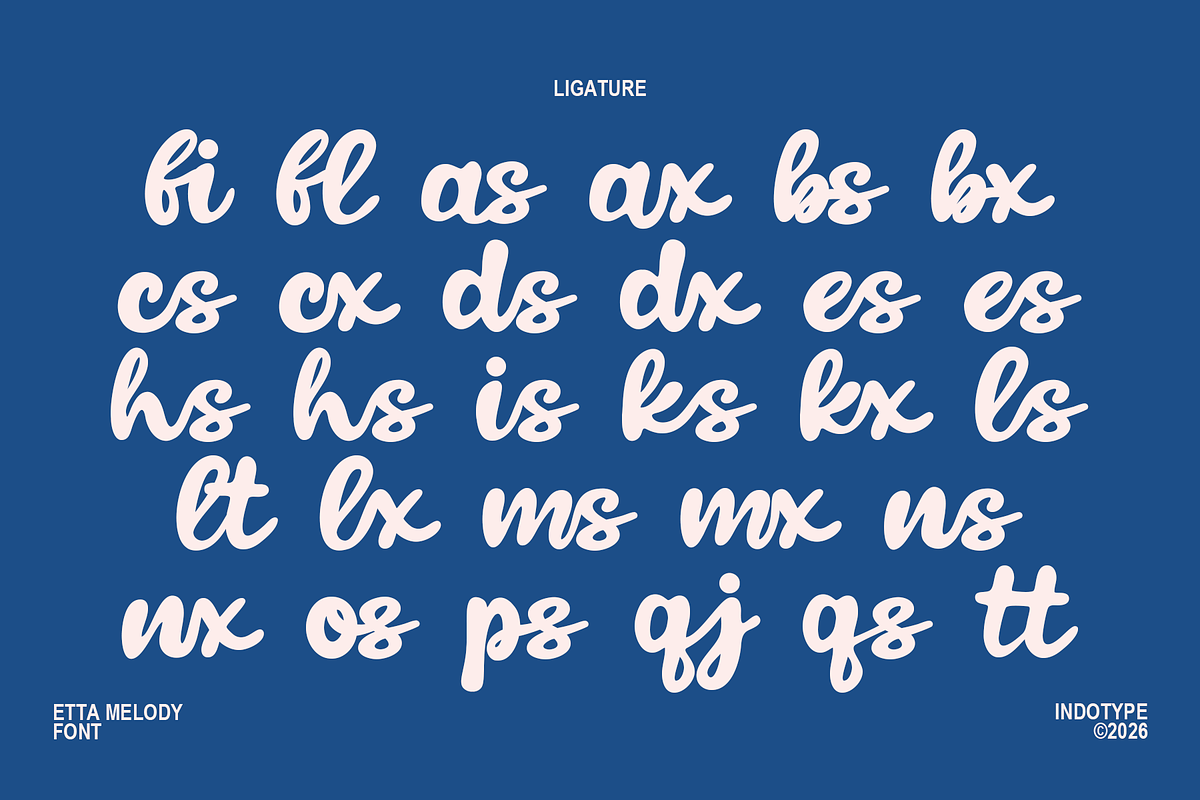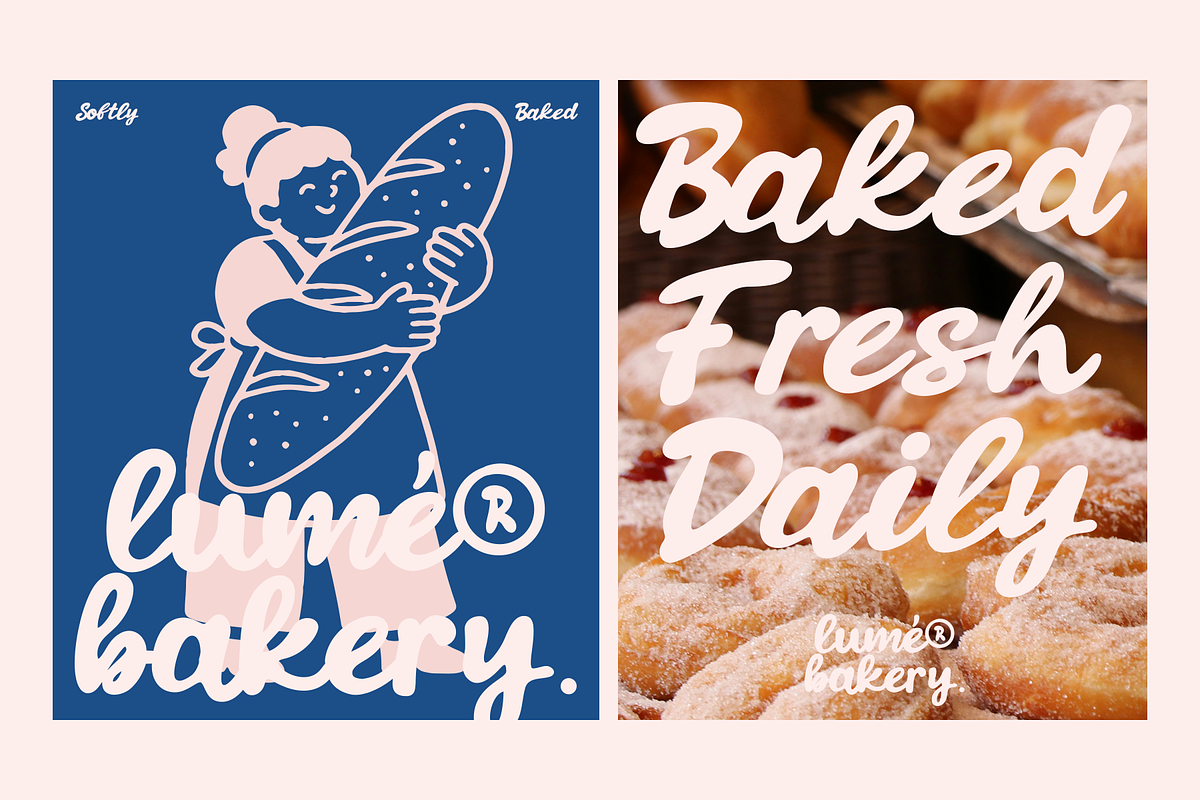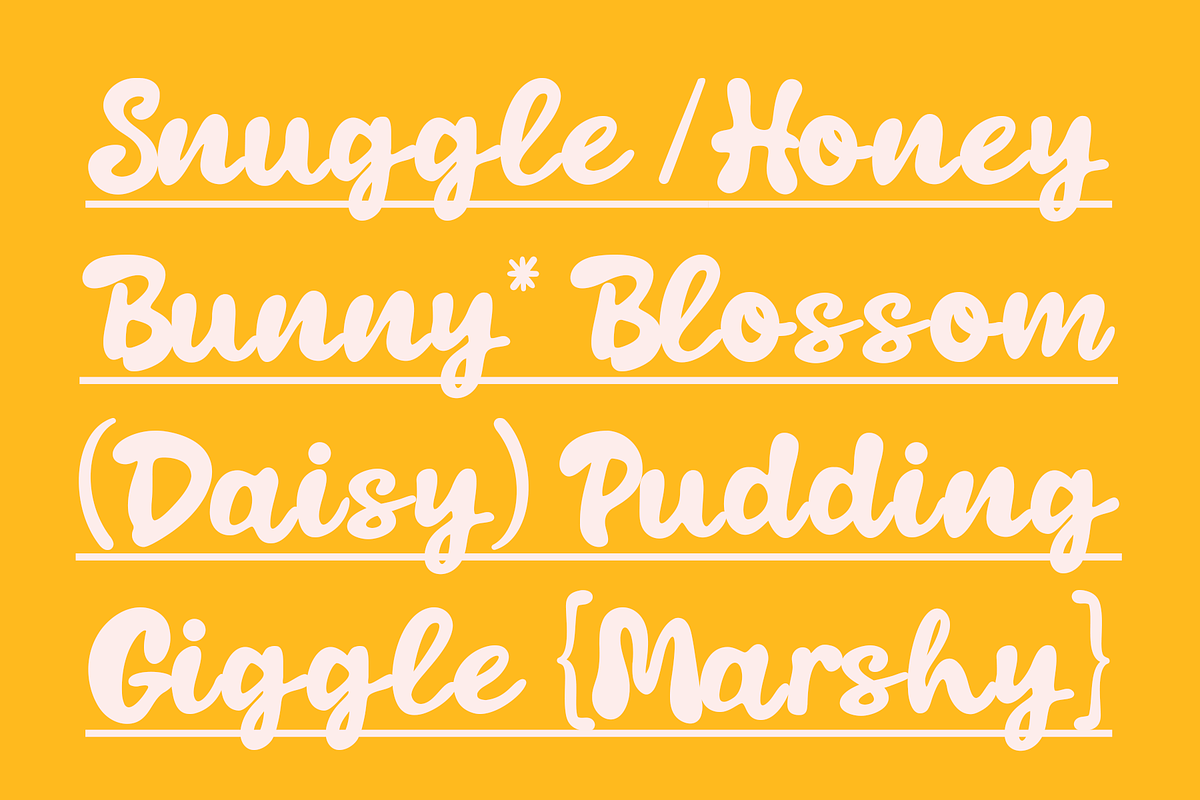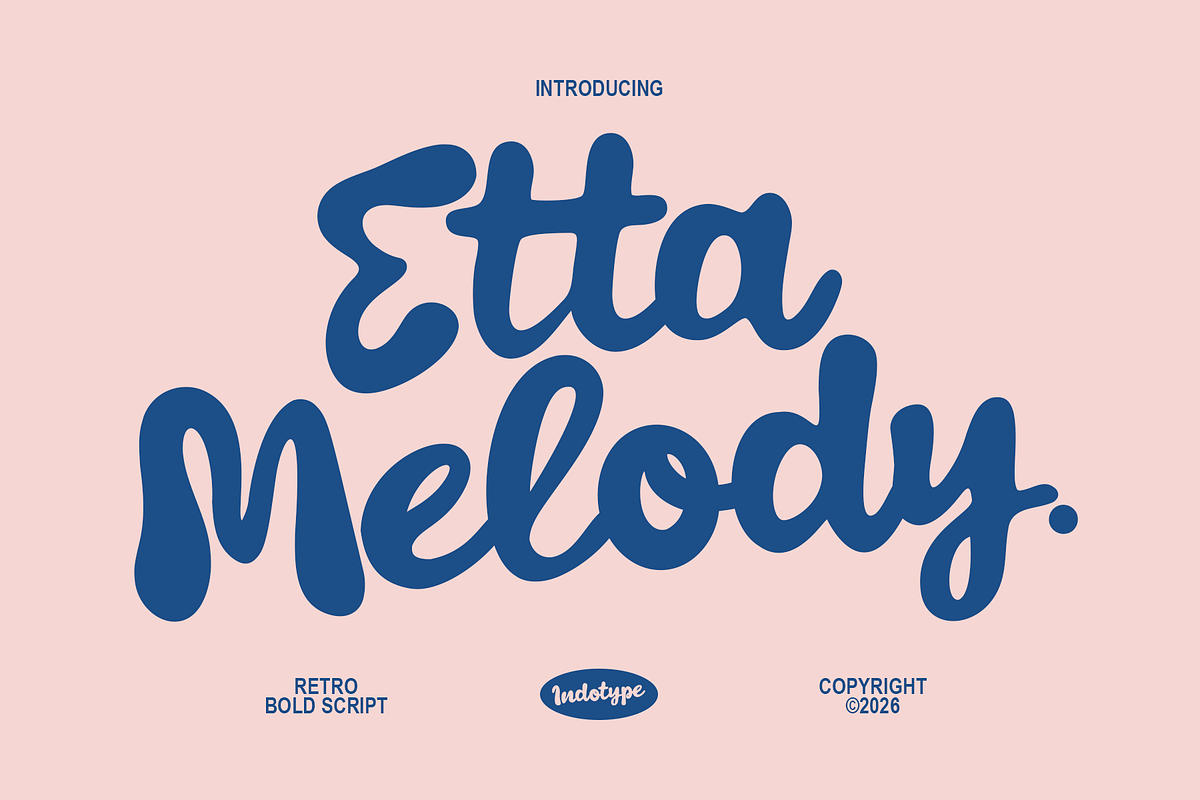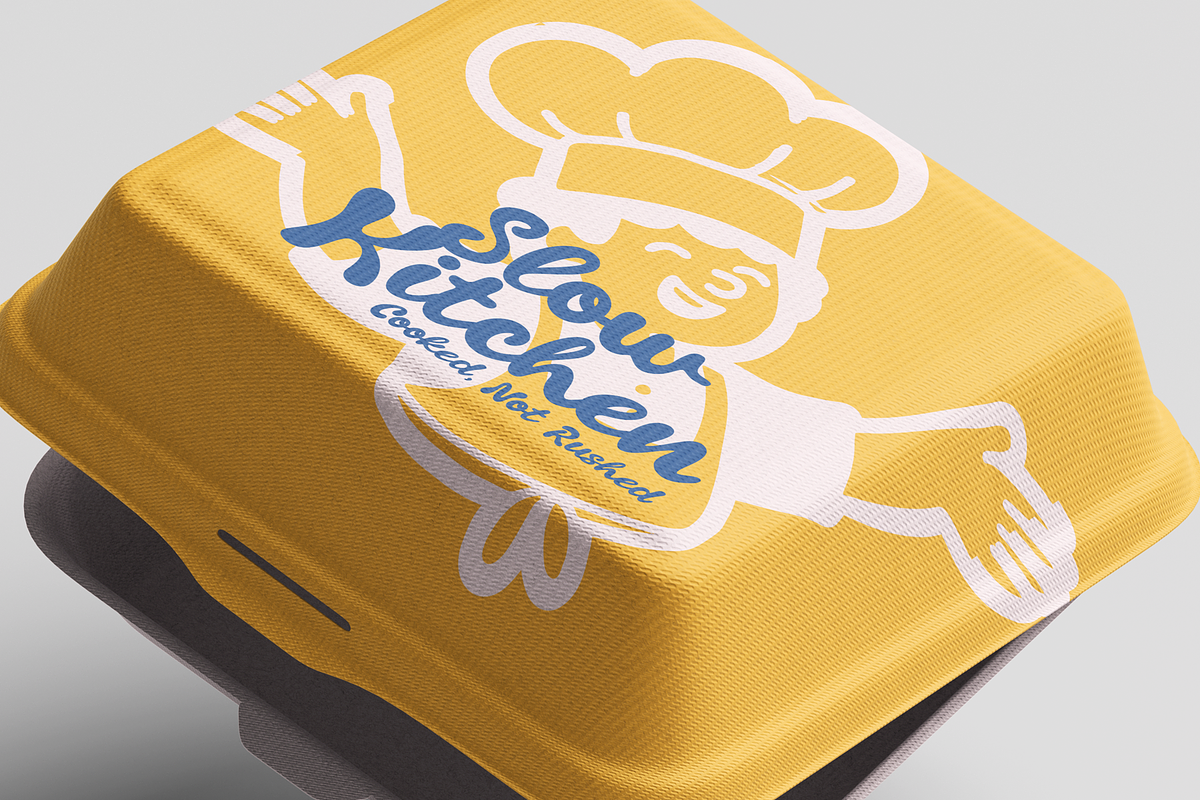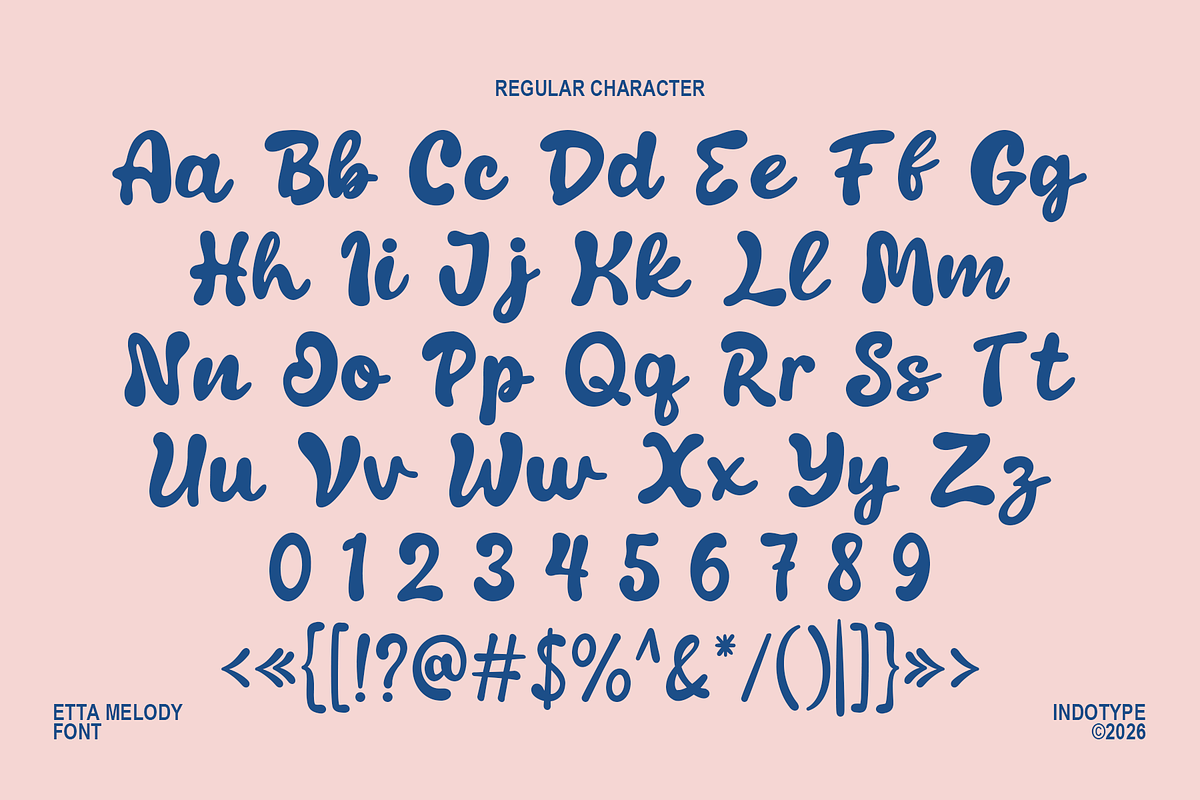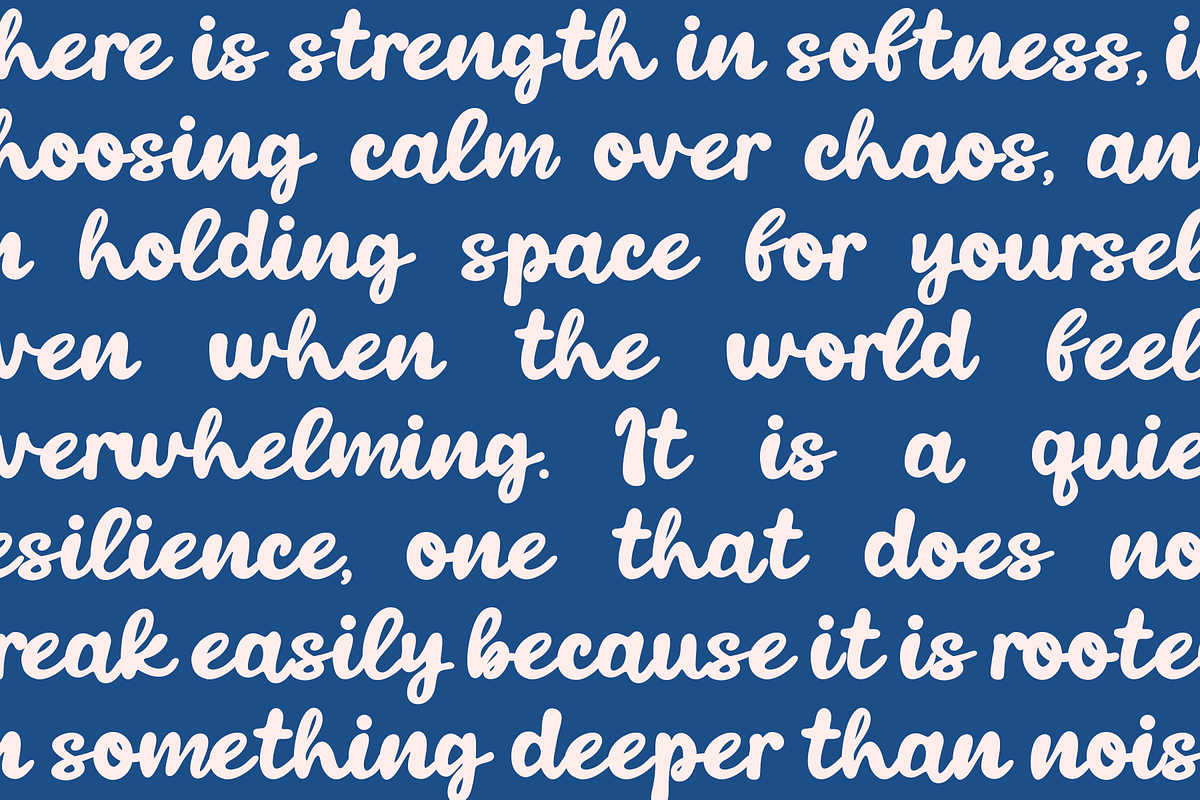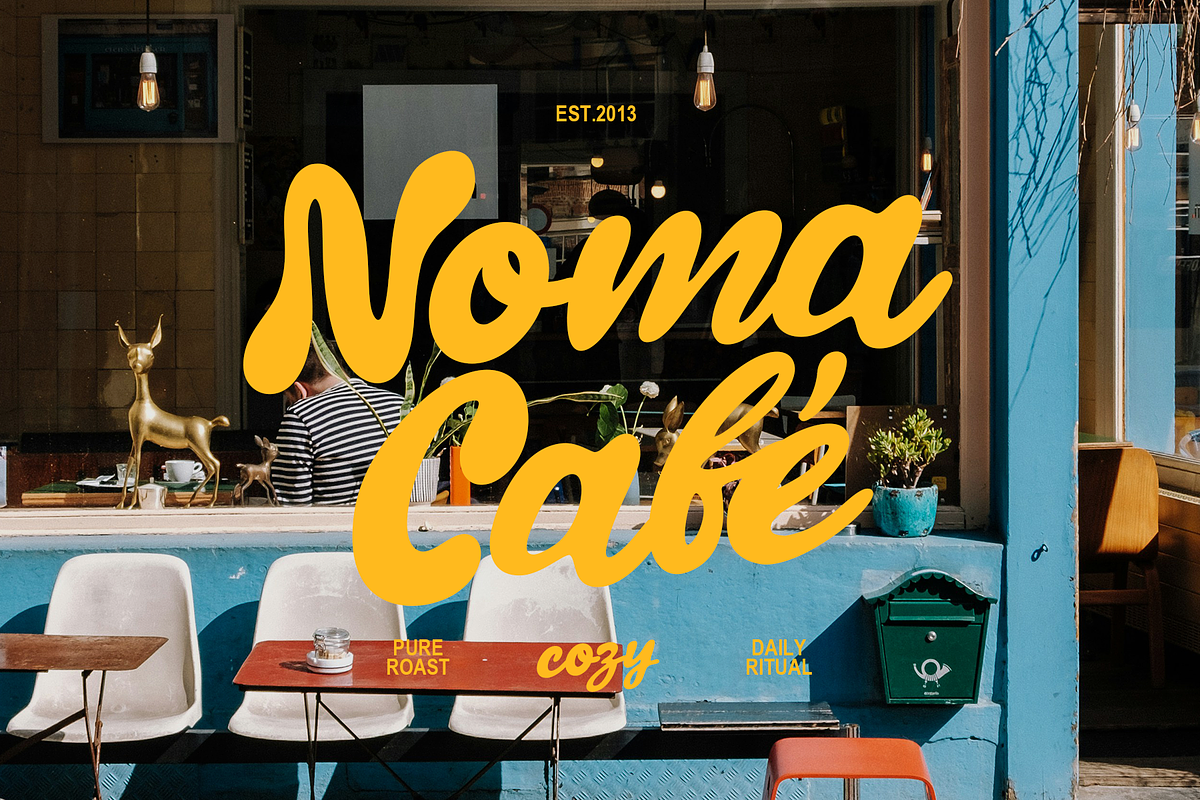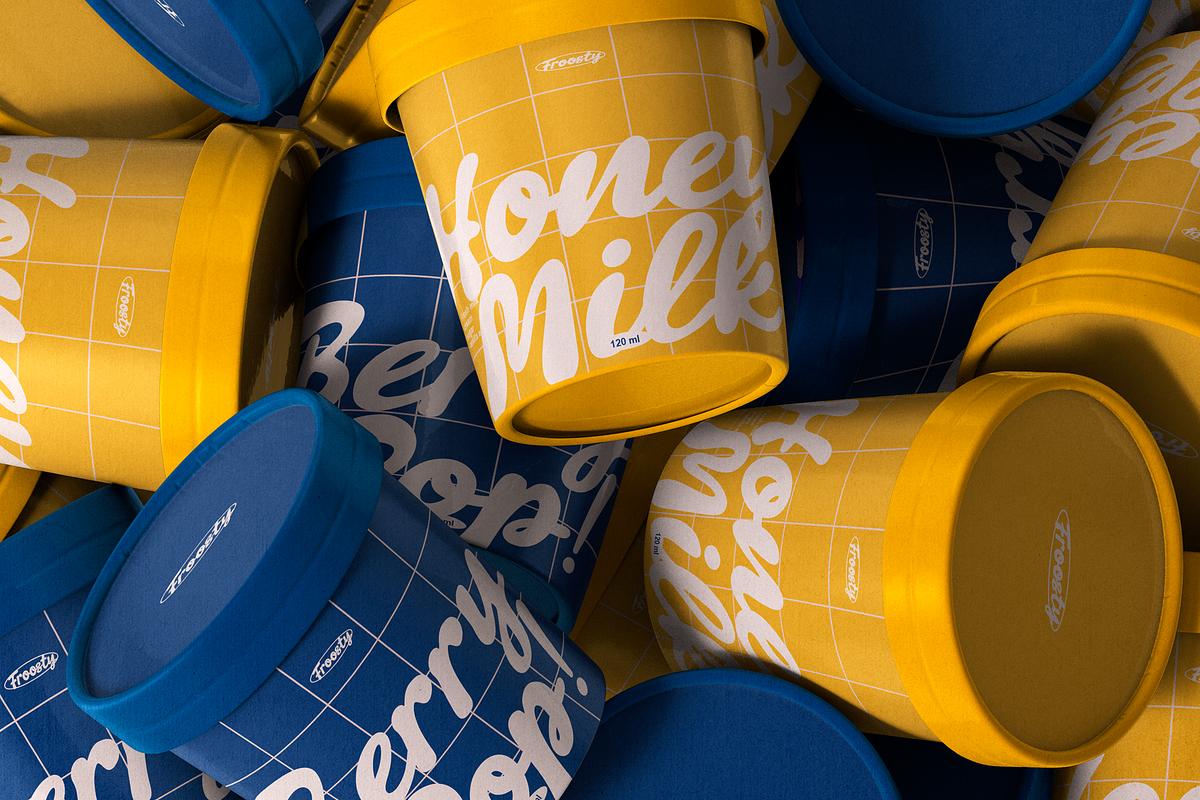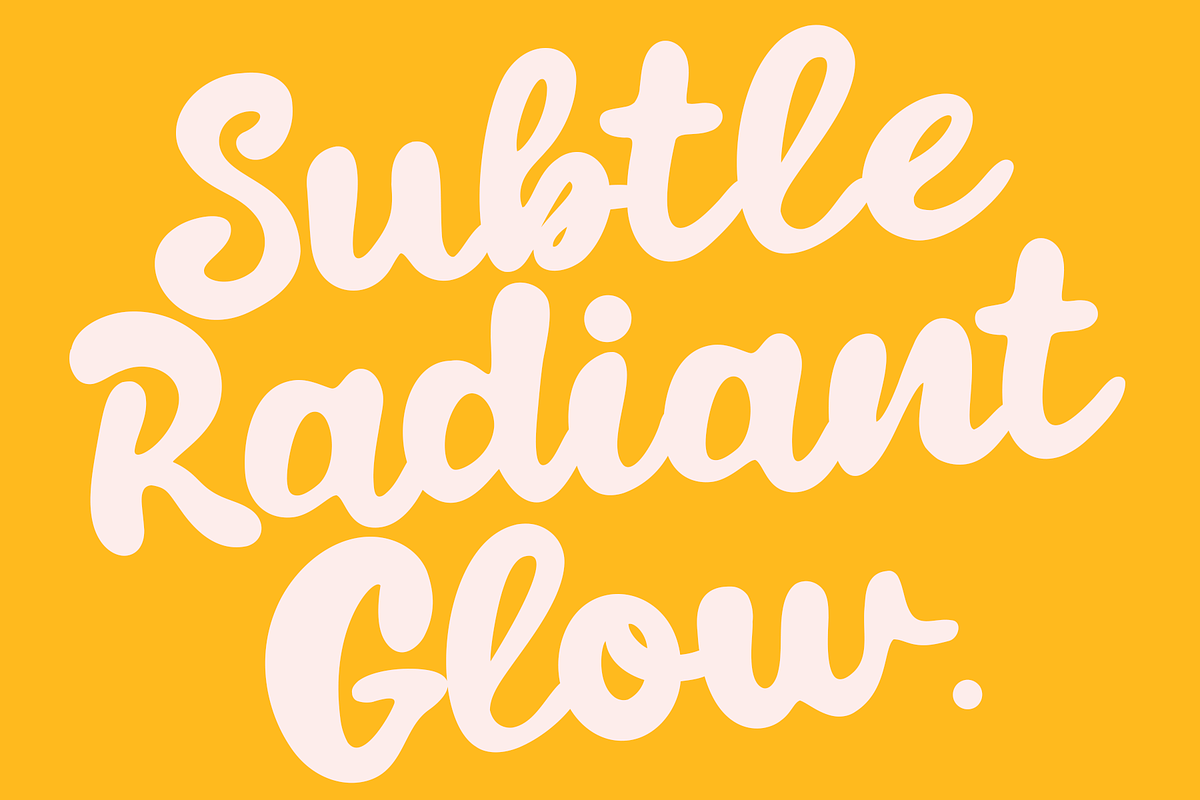
Etta Melody - Retro Bold Script
Etta Melody is a retro bold script typeface that radiates warmth, charm, and irresistible personality. Designed by Indotype, Etta Melody channels the golden era of mid-century American lettering — soda fountain signs, vinyl record sleeves, diner menus, and the hand-painted storefronts of a more optimistic, color-saturated world — and redelivers it as a fully contemporary display script ready for today's most expressive design work. It is the typeface equivalent of a perfect song: immediately familiar, endlessly pleasing, and impossible to get out of your head. Etta Melody's defining quality is the extraordinary roundness and weight of its stroke structure. Every letterform is constructed at maximum boldness, with strokes that swell generously at their fullest points and resolve into smoothly rounded terminals rather than sharp cuts or fine points. This gives the typeface a soft, almost tactile quality — letters that feel as satisfying to look at as they would be to touch. The uniform stroke weight, with minimal contrast between thick and thin, reinforces the casual, friendly confidence that is the hallmark of great retro script design. The connected cursive flow is fluid and natural, each letterform linking to the next with the ease of a practiced hand moving across the page without hesitation. The rhythm of the script — the way strokes rise, loop, and descend — carries a musical cadence that is entirely fitting for a typeface named after a melody. Reading Etta Melody feels less like parsing text and more like following a tune: intuitive, pleasurable, and satisfying from first note to last.